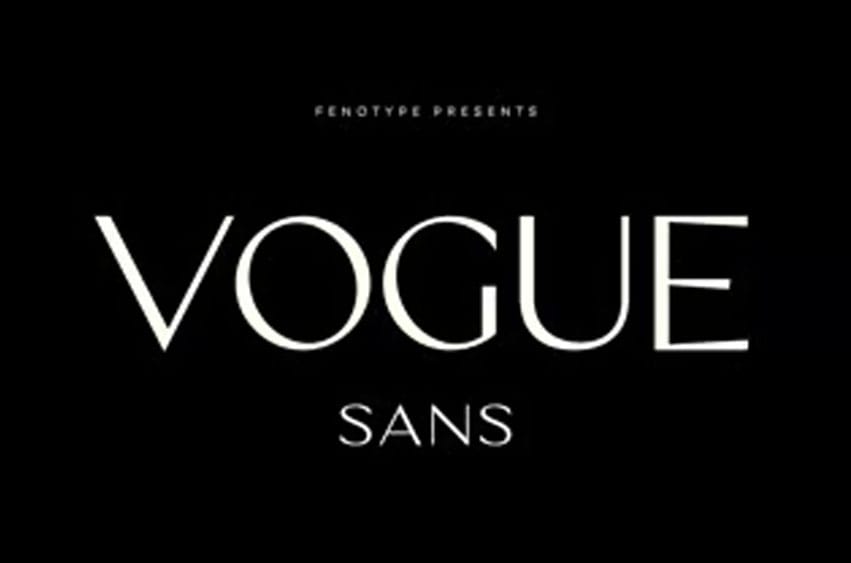
Vogue Sans Font is a luxurious, high-contrast sans-serif font that’s perfect for fashion and haute couture, as well as glamorous headlines. Try typing any word or name in Vogue Sans and it will look stunning.
Vogue Sans comes with several nested ligatures: CC, CO, LA, LC, LL, LE, OO, and TT. Vogue Sans also has Swash and Titling alternatives for the letters AKLTXQR and Stylistic alternatives for the letters K and R. Go for it, chic!